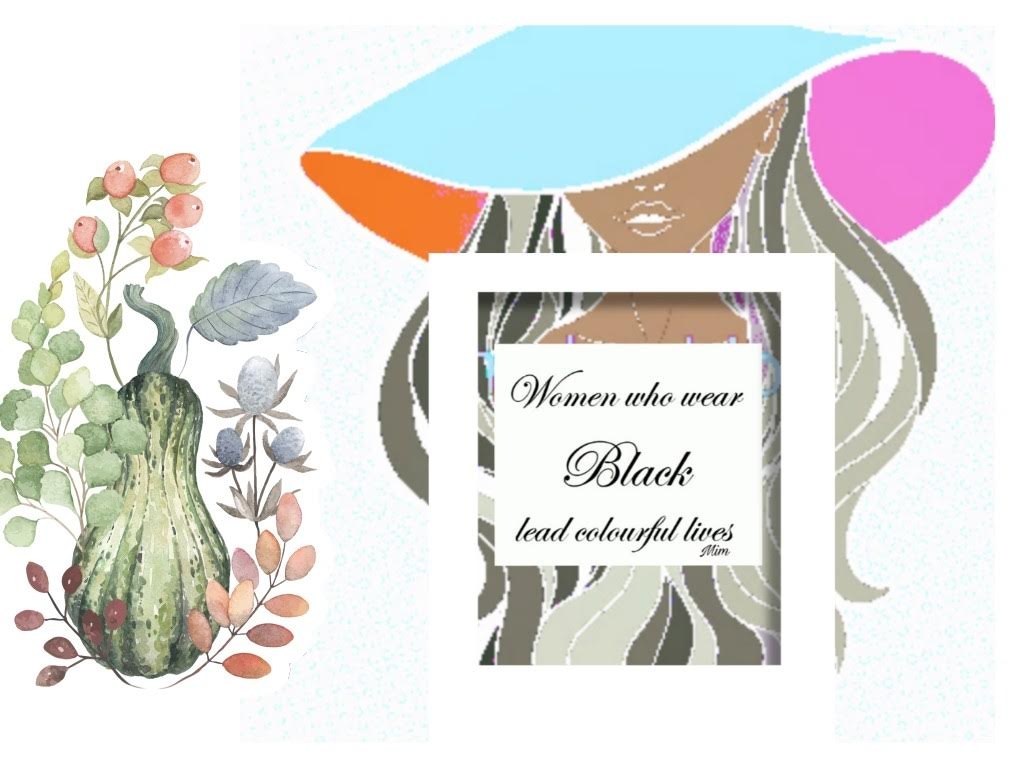
Angella is a magic handwritten font carefully crafted with an elegant touch. It is a beautiful combination of timeless elegance and authentic …
Angella Font